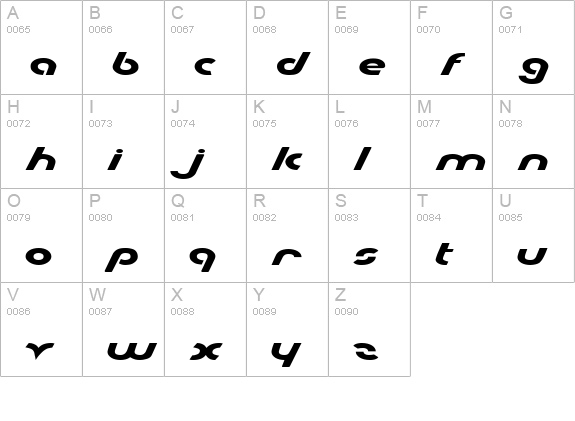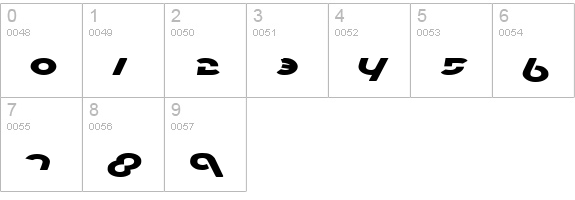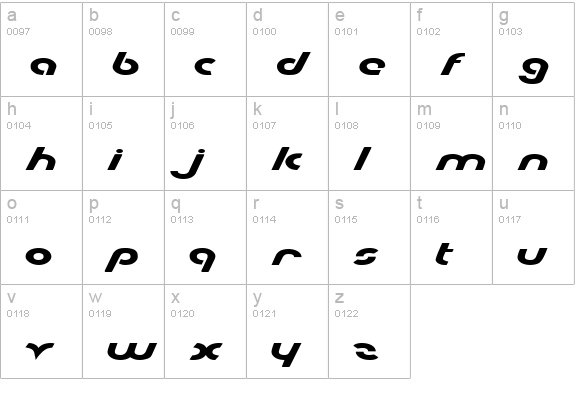
Metroplex Expanded Font Details
Metroplex Expanded is a distinctive, extended-width variant in the Metroplex typeface family \xE2\x80\x94 well suited to design and typography projects.
Metroplex Expanded is a modern and sleek display font that exudes confidence and sophistication. With its clean lines and sharp edges, this typeface is perfect for making a bold statement in your design projects. The expanded version of Metroplex offers a wider character set, allowing for more versatility and creativity in your typography. What's even better is that Metroplex Expanded is available for free download at FontsMarket.com. This means you can add this stylish font to your collection without any cost, making it a valuable addition to your design toolkit. Whether you're working on branding, posters, or any other project that requires a standout font, Metroplex Expanded is sure to impress with its contemporary look and feel. Download it today and elevate your designs with this exceptional typeface.